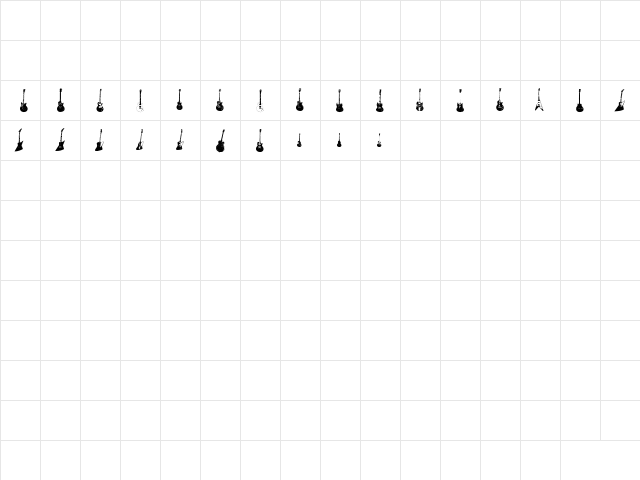
Jazzed Up Regular Font Preview
Jazzed Up Regular
Design Context for Jazzed Up Typeface
Jazzed Up is a composed and adaptable typeface that performs quietly and consistently across a wide range of design contexts.